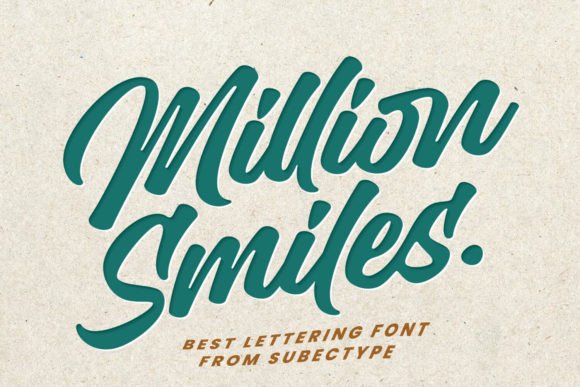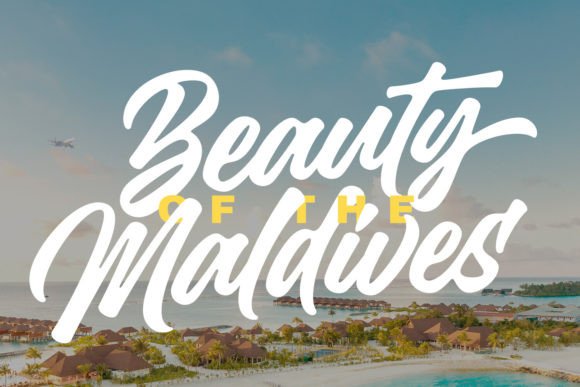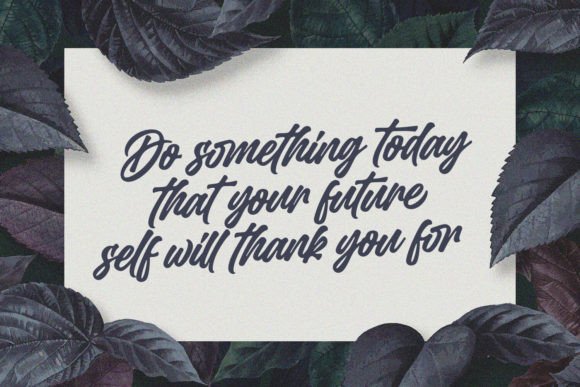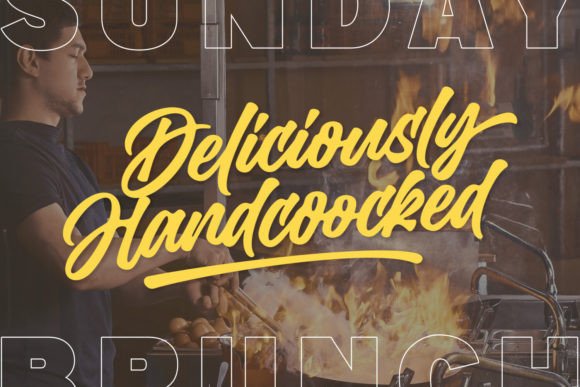
Million Smiles Font: A Bold Script for Playful Logo Design
About the Million Smiles Font
Presenting Million Smiles Font, a unique and stylish typeface that will make your work stand out. Introducing our newest font, “Million Smiles”, a casual bold script font with hand-letterred style. Million Smiles is an upgraded version of our previous font, “Billion Dreams”. In this new version, we’ve rounded the edges a bit for a softer look, compared to the sharp edges of the old one. This enchanting font is the perfect choice for design projects that aim for a fun, urban, and classy vibe. It adds a touch of cool to your creativity without losing its elegant charm.
Million Smiles excels in headlines, short taglines, and logos where its bold, friendly personality shines. It’s ideal for branding projects targeting a youthful, yet sophisticated audience, or for packaging designs needing a touch of playful elegance. Avoid using it for body text or lengthy paragraphs; its casual nature reduces readability at smaller sizes.
Pairing Million Smiles with a clean sans-serif like Montserrat for body copy creates a strong contrast and balanced aesthetic. For a more playful feel, consider pairing it with a geometric sans-serif such as Futura. Alternatively, a classic serif like Garamond adds a touch of timeless elegance, grounding the script’s casual energy.
The font’s overall personality is best described as casually elegant; bold yet soft, modern yet approachable. This makes it a versatile choice for brands that aim for a balance between sophistication and approachability.
Million Smiles Font Usage Examples
Million Smiles Font Example